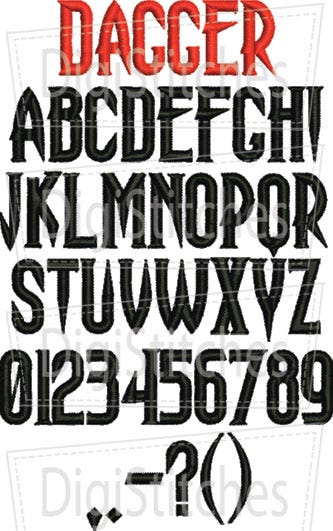
Dagger Satin Stitch Embroidery Font
Dagger Embroidery Font
Dagger Embroidery Font -- hands down the perfect font for Halloween!
Upper Case letters A thru Z, numbers 0-9 and punctuation as shown.